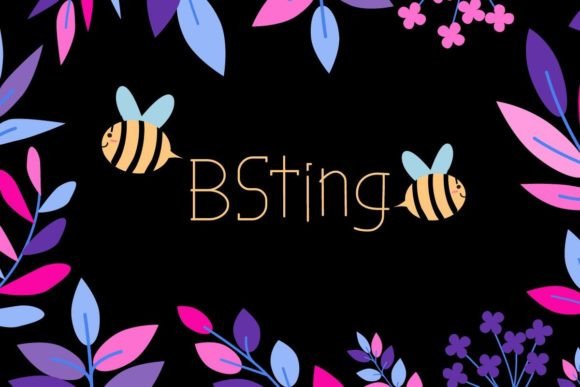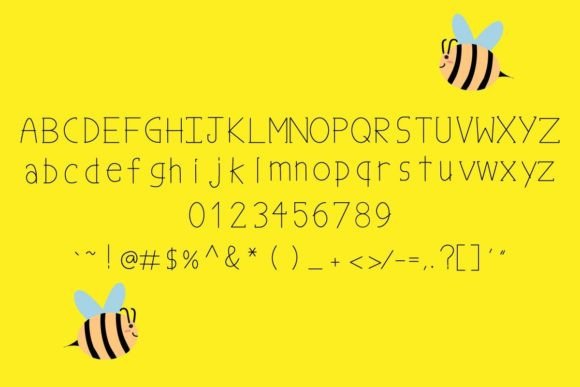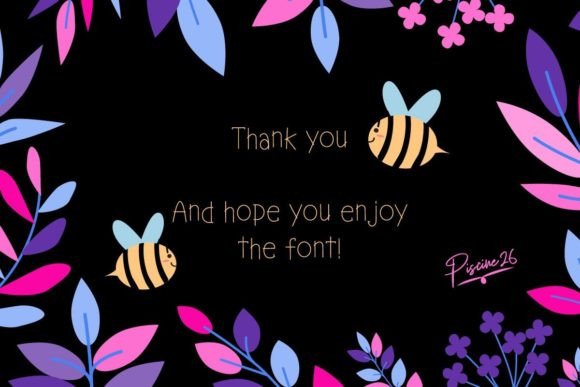
Bsting Font
About Bsting Font
“BSting” isn’t just a font; it’s a charming expression of simplicity and cuteness, a handwritten style that injects life and liveliness into your designs. Inspired by the bee’s sting, this font brings a delightful touch to your projects, making them more vibrant and memorable.
Imagine your sheets or creative works adorned with the cute and thin strokes of BSting, instantly infusing them with a playful energy. Visualize your designs standing out from the competition, capturing attention with the font’s simplicity and charm. BSting is more than just a typographic choice; it’s a design element that adds personality and character to your creations.
BSting’s simplicity doesn’t compromise its impact; it enhances the overall aesthetics of your projects, making them more lively and engaging. Whether you’re creating cute items, crafting adorable gifts for your loved ones, or designing playful marketing materials, BSting brings a sense of fun and sweetness to every letter.
The font’s handwritten style conveys a sense of authenticity, making your designs feel more genuine and relatable. By using BSting, you’re not just incorporating a font into your projects; you’re adding a touch of warmth and affection. It’s the perfect choice for creating heartfelt messages, playful invitations, or any design that requires a dose of cuteness and charm.
In a world where visual appeal matters, BSting stands out as a delightful choice. Its thin and simple strokes make it versatile, allowing it to fit seamlessly into various contexts. Whether you’re designing for personal projects or professional endeavors, BSting gives your creations the extra push they need to leave a lasting impression.
So, whether you’re a creative enthusiast looking to add a lively touch to your work or a designer aiming to create standout visuals, BSting is your cheerful companion. It’s more than just a font; it’s an opportunity to infuse your projects with the sweetness of simplicity and the charm of cuteness. Let BSting be the handwritten touch that brings your designs to life, making them not just visually appealing but also genuinely delightful.